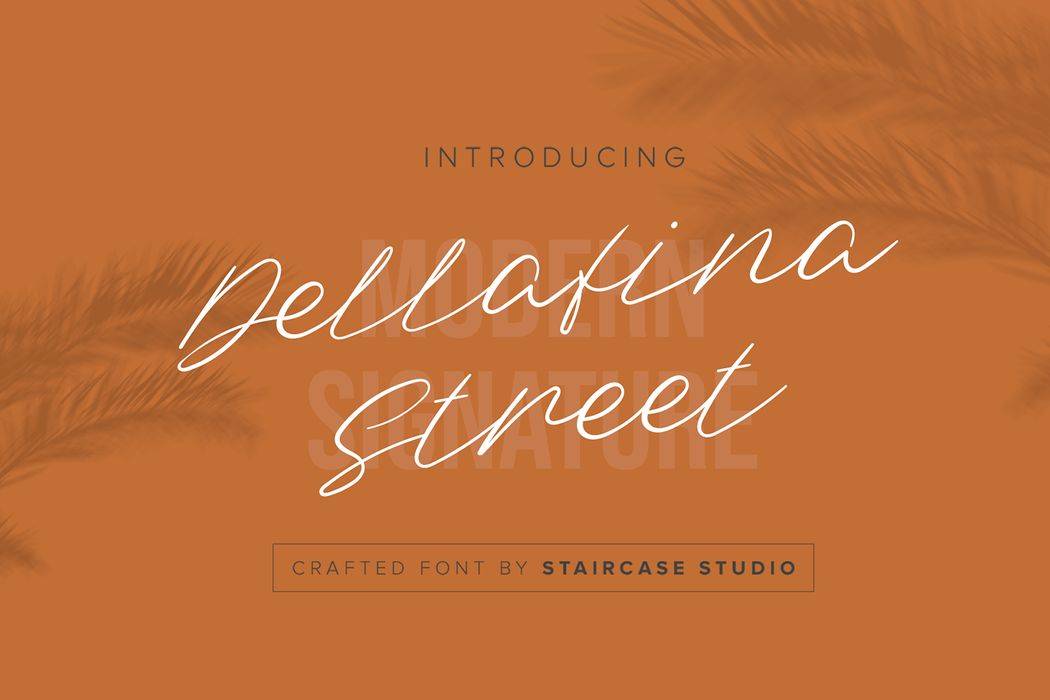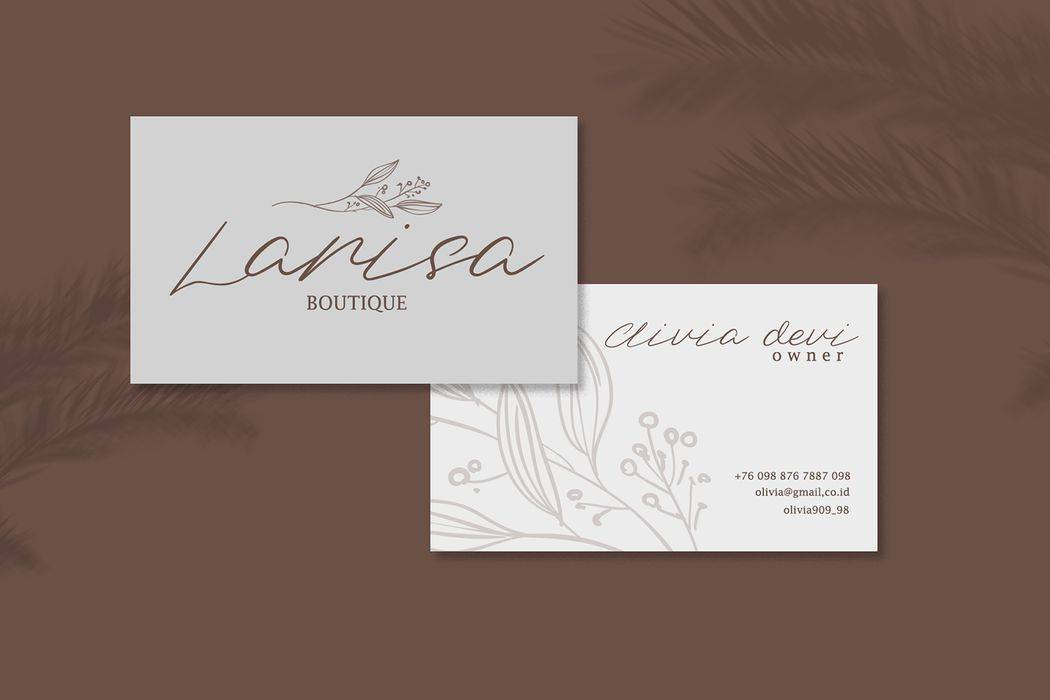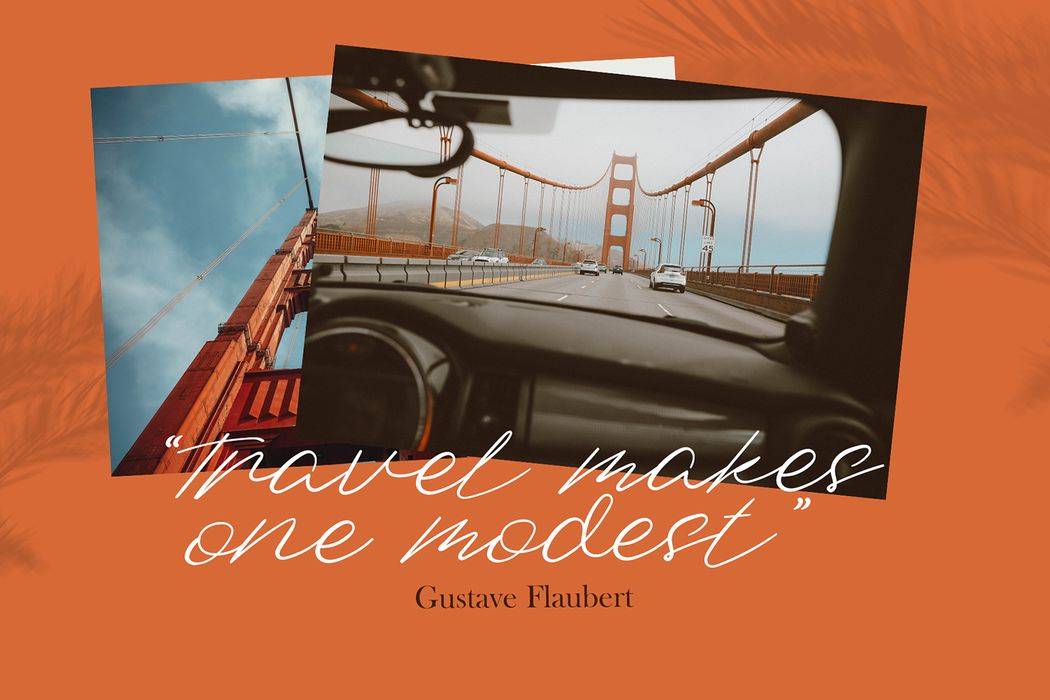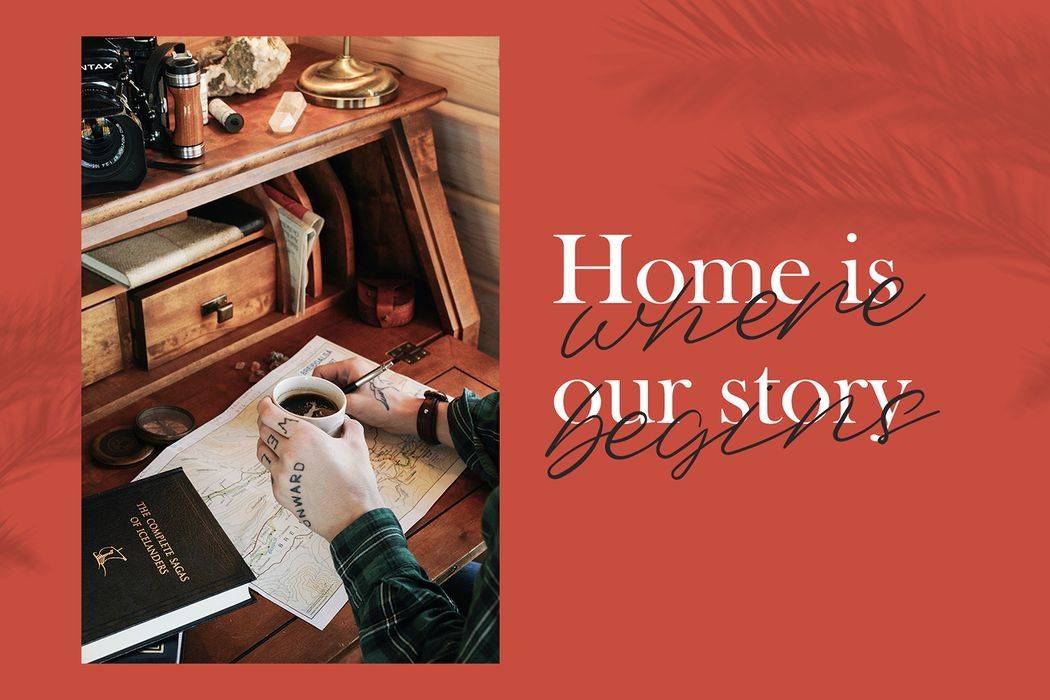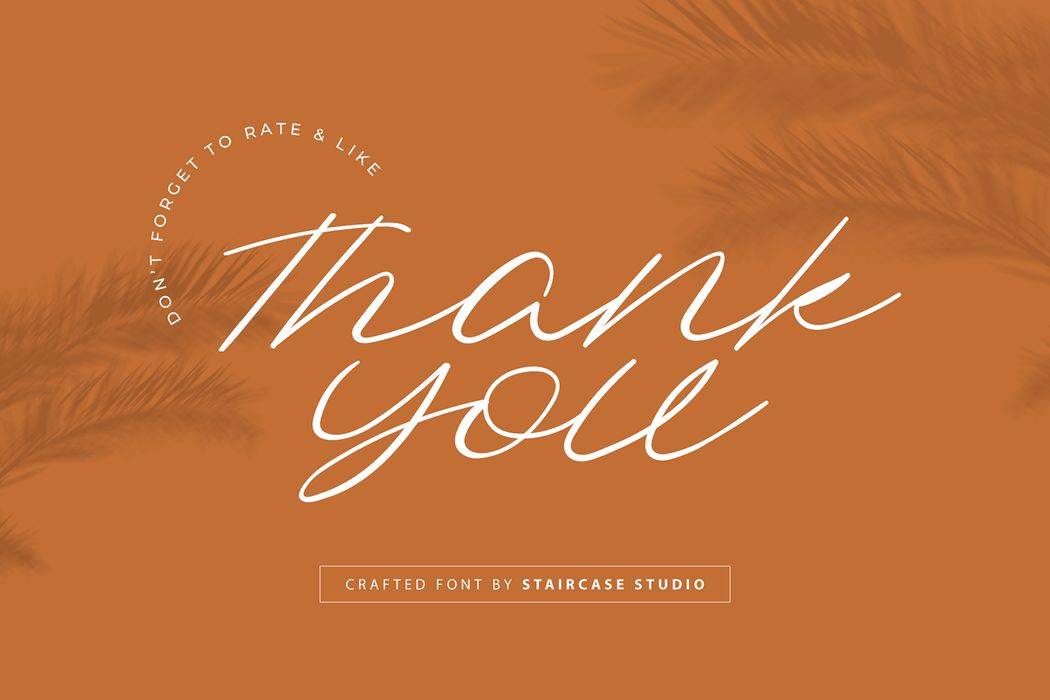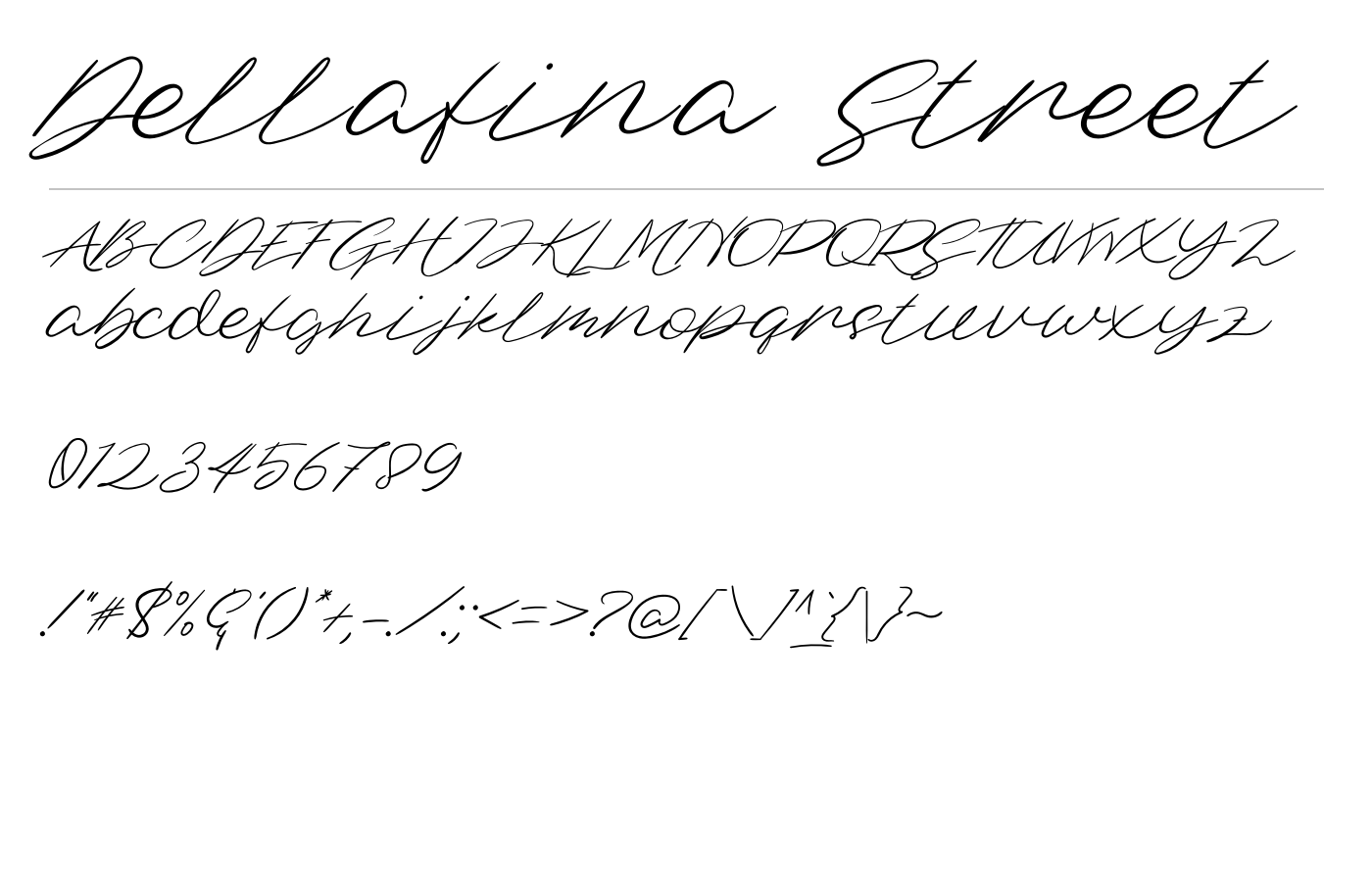
Dellafina Street is a delicate and elegant script font with a handwritten, casual style that feels personal and inviting. Its thin, flowing strokes and slightly slanted letterforms convey a sense of warmth and creativity, making it ideal for branding, invitations, and lifestyle projects that seek a refined yet approachable look. This font works beautifully in both display and smaller text sizes where a subtle, artistic touch is desired.
Dellafina Street Font
About Dellafina Street Font